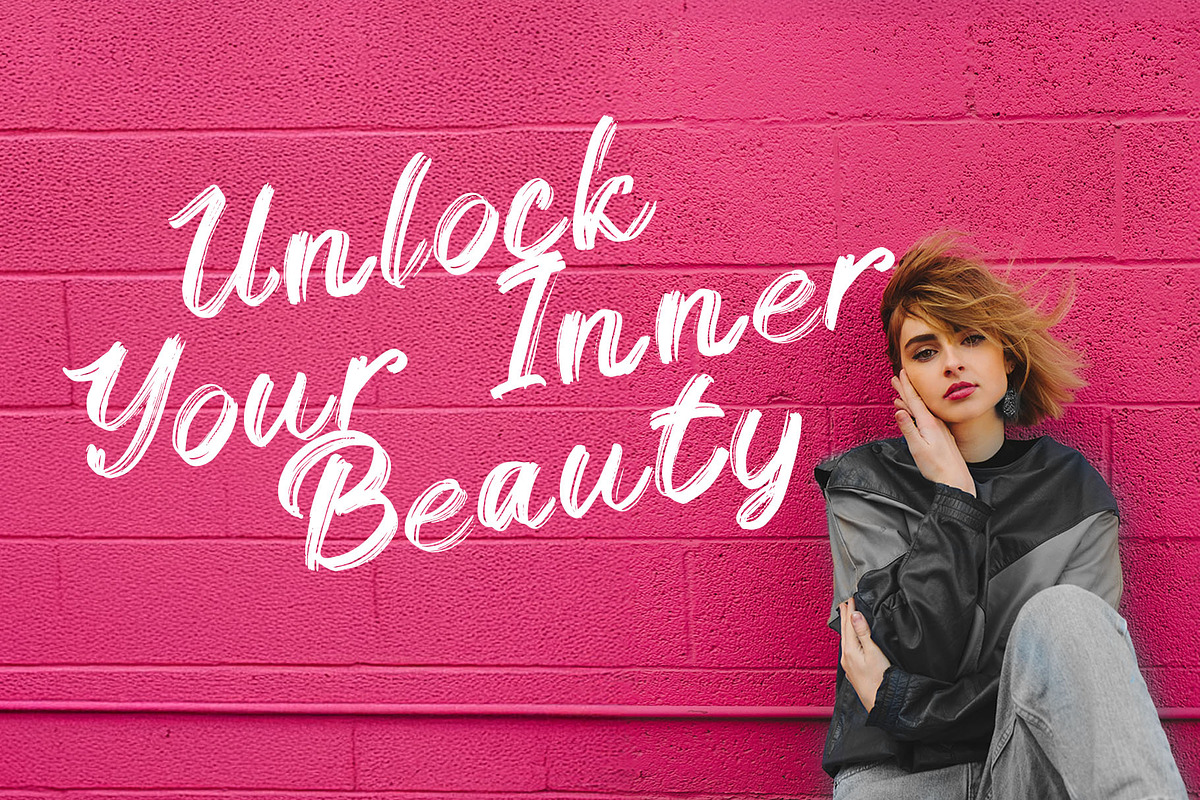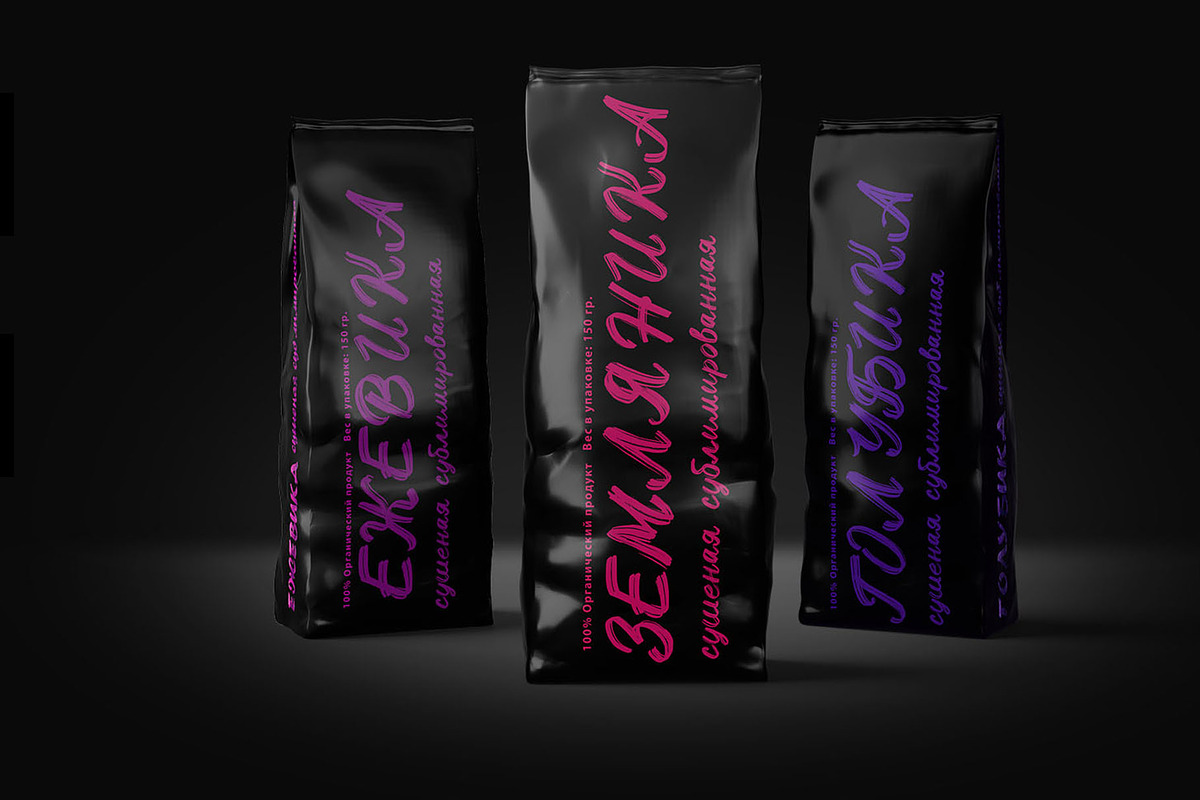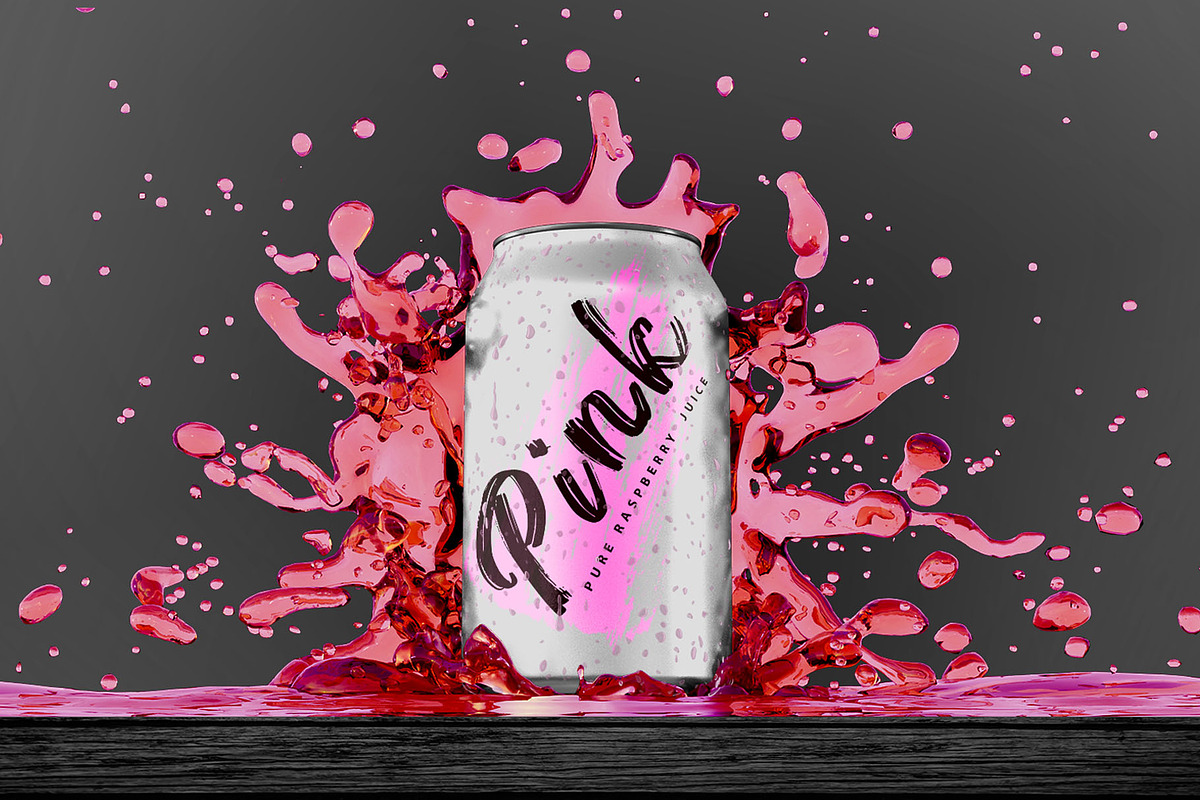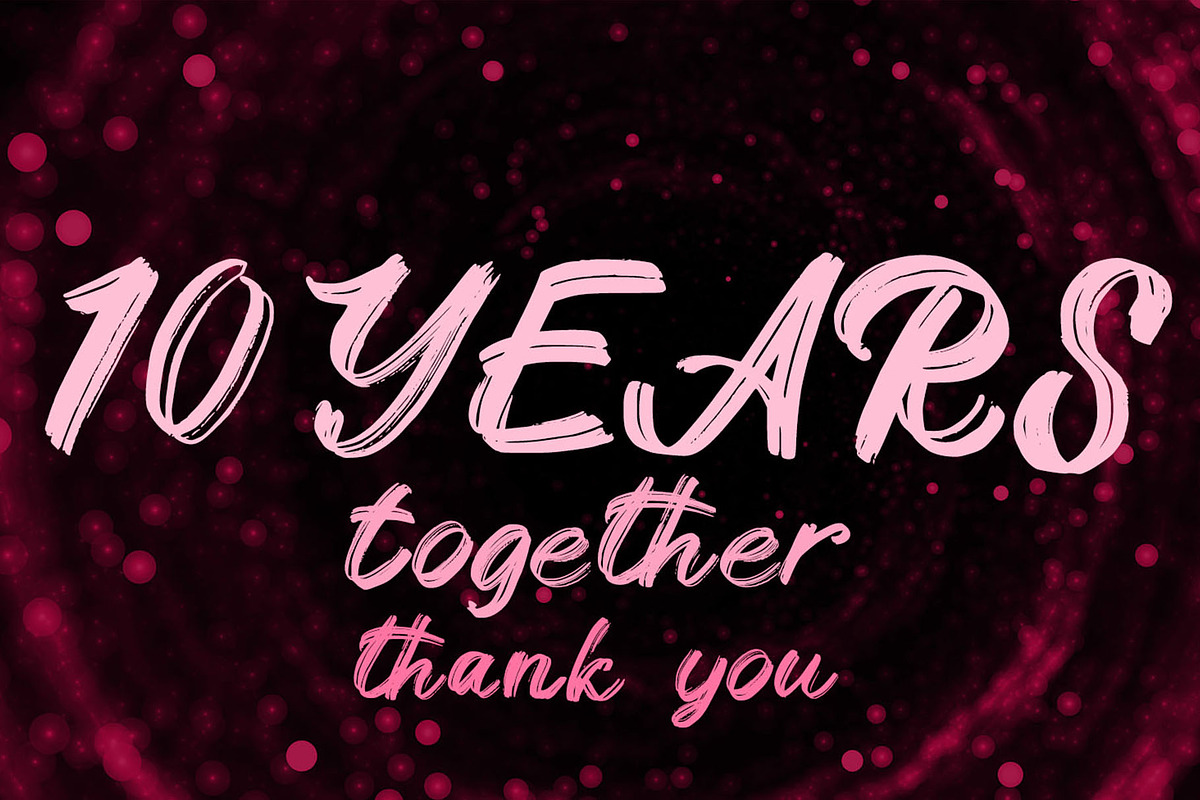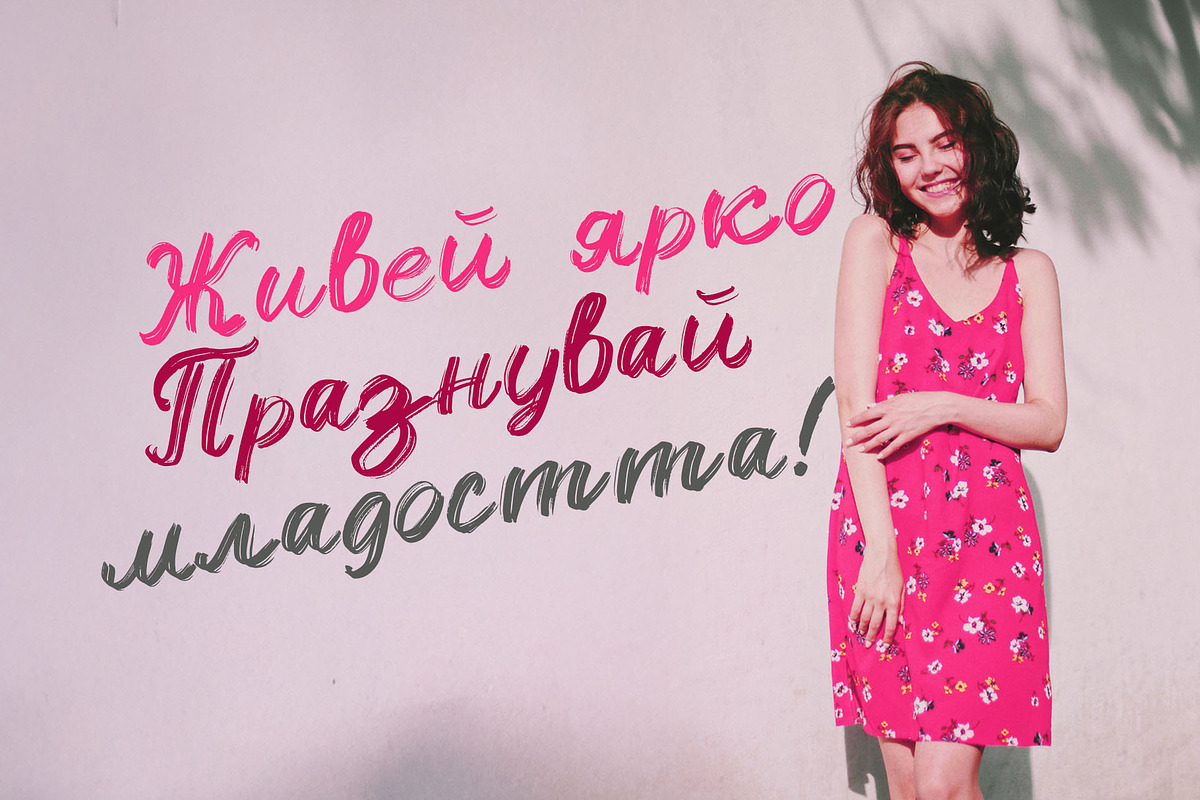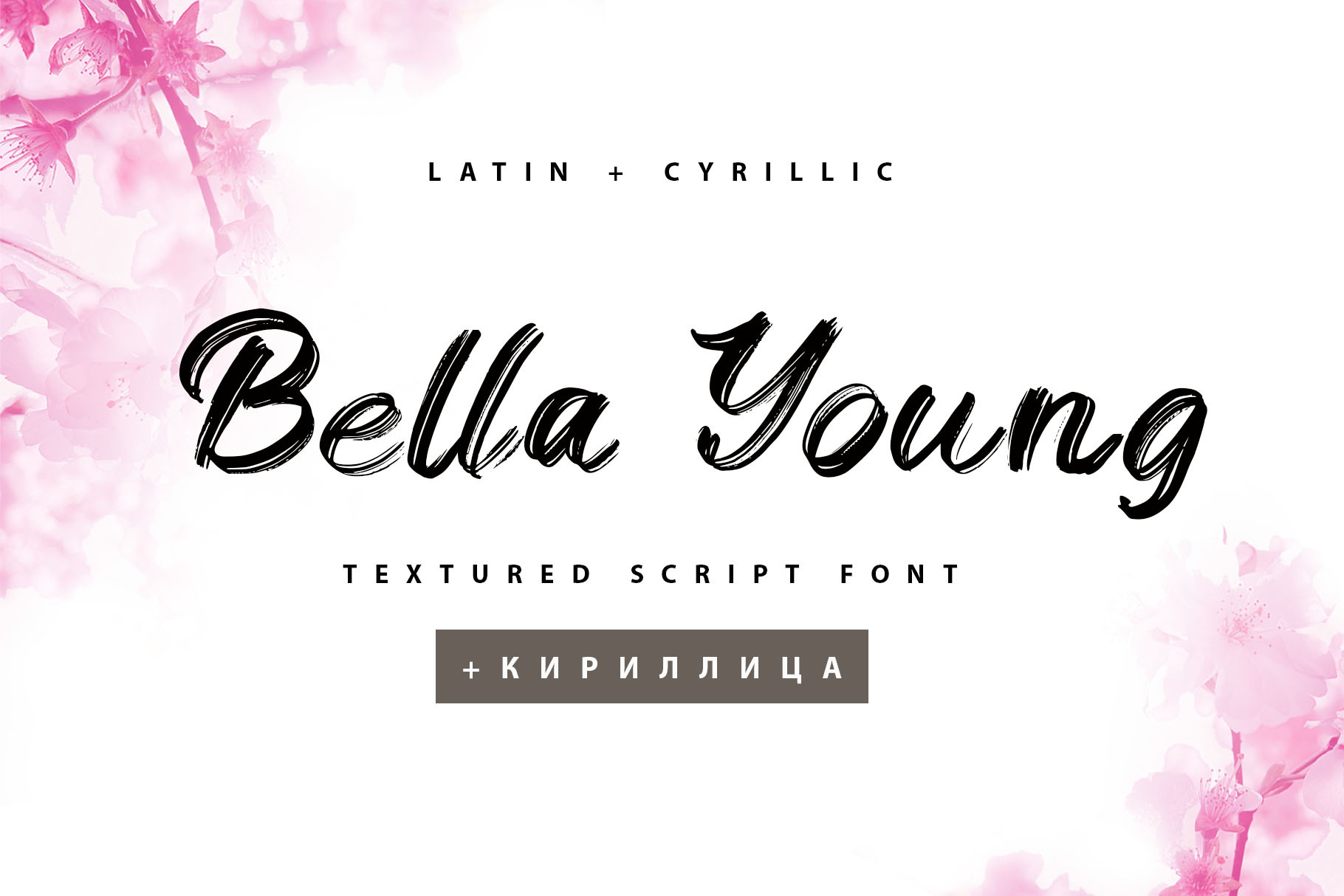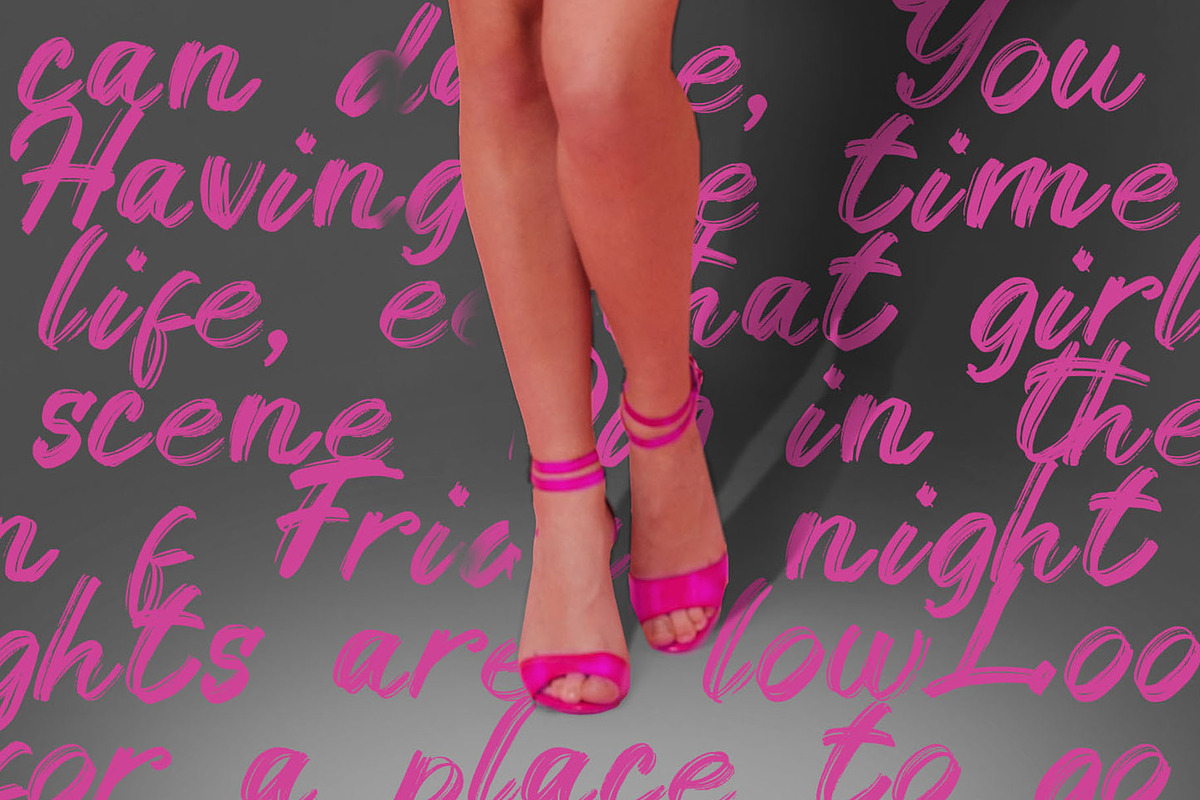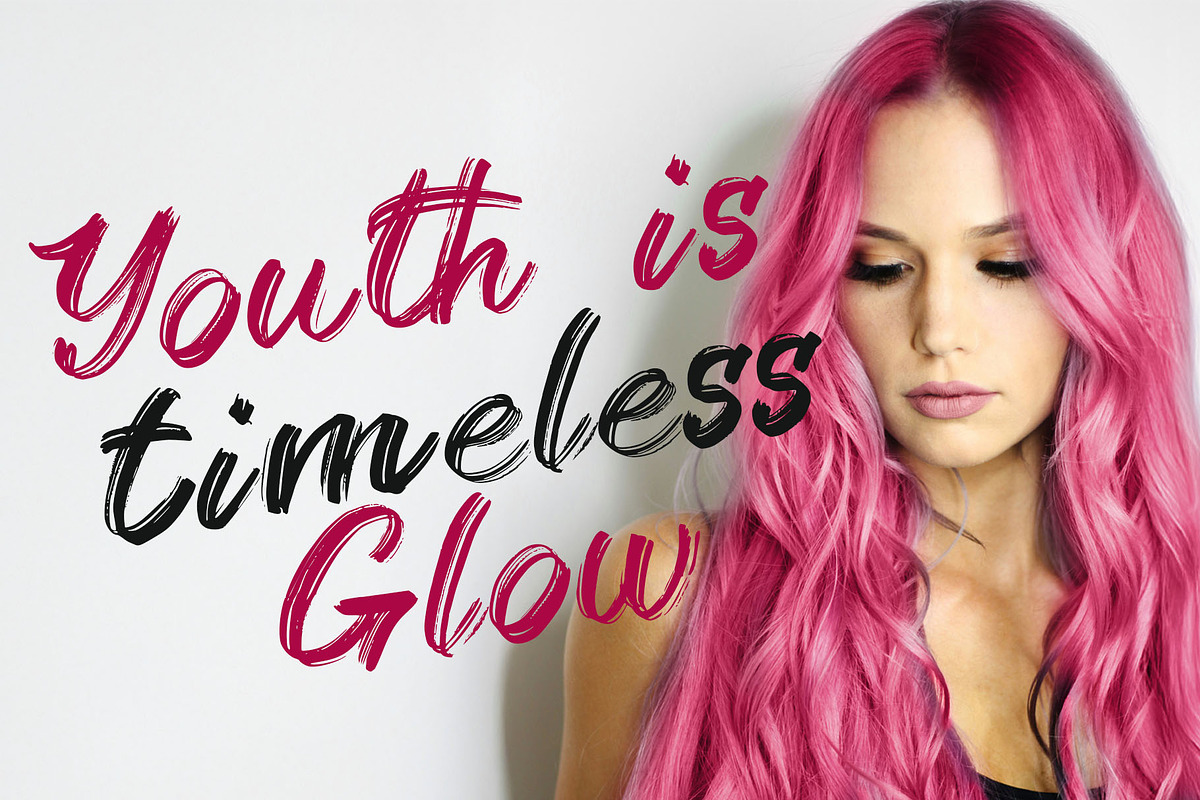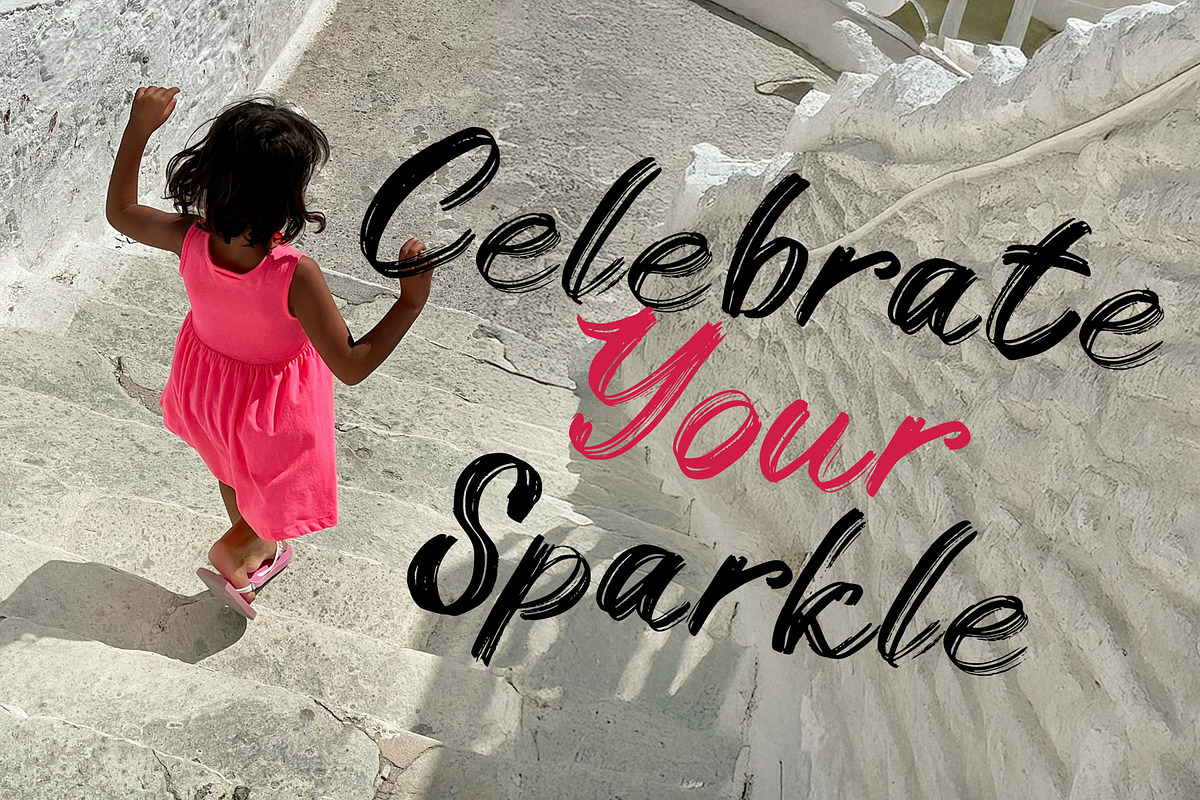
Bella Young Cyrillic Textured Font
Bella Young Cyrillic Textured Script font was handwritten with a dry brush and will look great on branding design, posters, apparel, logotype, website header, fashion design, wedding card design, and more.
Bella Young textured script font contains a full set of uppercase and lowercase letters and 23 ligatures - which can be used to create a handwritten calligraphy look.
The Cyrillic part of the font contains the uppercase letters lowercase letters and 18 ligatures, giving a realistic hand-lettered style.
Multilingual Support for 32 languages: Latin glyphs for Afrikaans, Albanian, Basque, Bosnian, Catalan, Danish, Dutch, English, Estonian, Faroese, Filipino, Finnish, French, Galician, Indonesian, Irish, Italian, Malay, Norwegian Bokmål, Portuguese, Slovenian, Spanish, Swahili, Swedish, Turkish, Welsh, Zulu. And Cyrillic glyphs support Russian, Belorussian, Bulgarian, Ukrainian, and Kazakh languages.